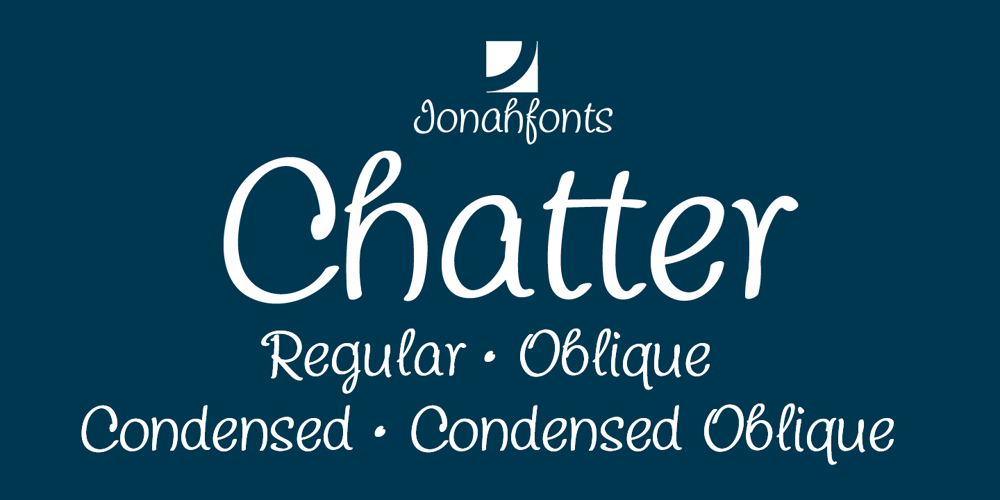
Chatter
Chatter font
Chatter Font Family was designed by John Nahmias and published by Jonahfonts. Chatter contains 4 styles and family package options. A free style specifically designed for Packaging but still works well for Greeting cards, Magazines, Posters and Advertising Ads.